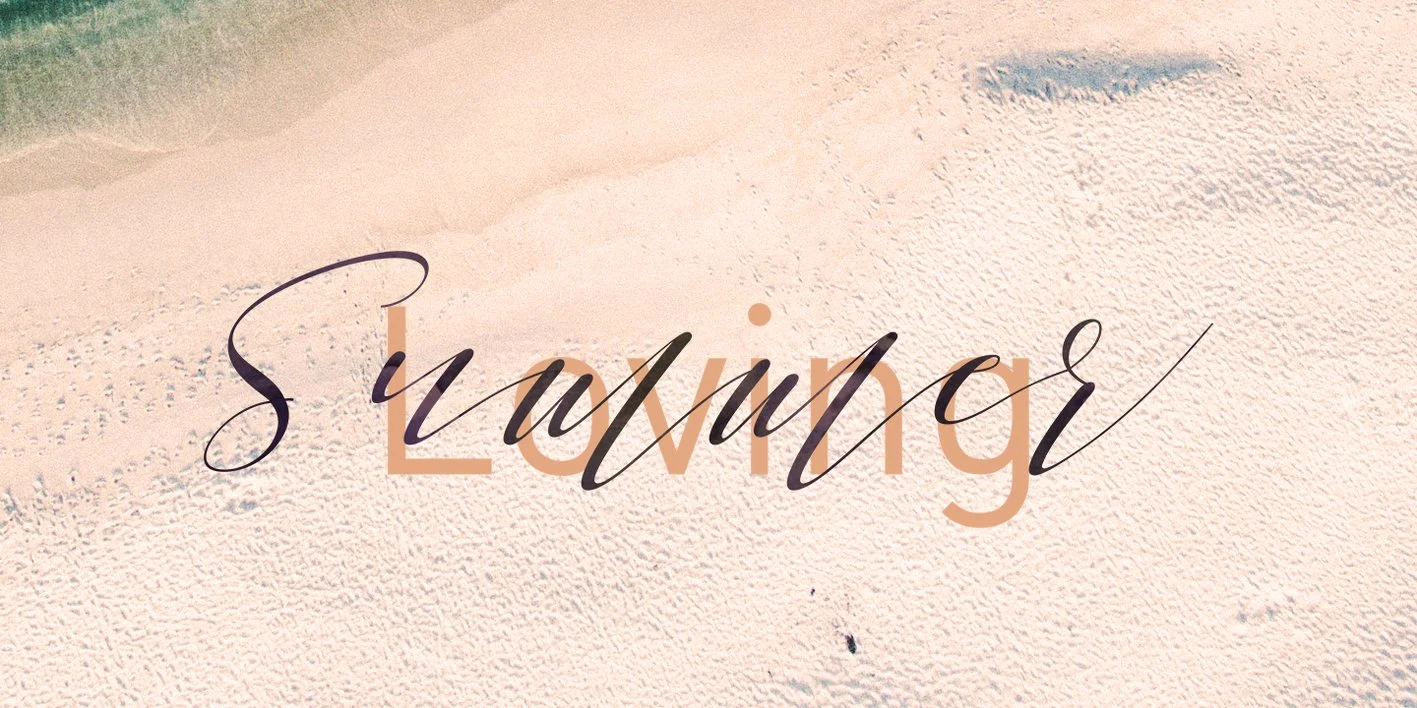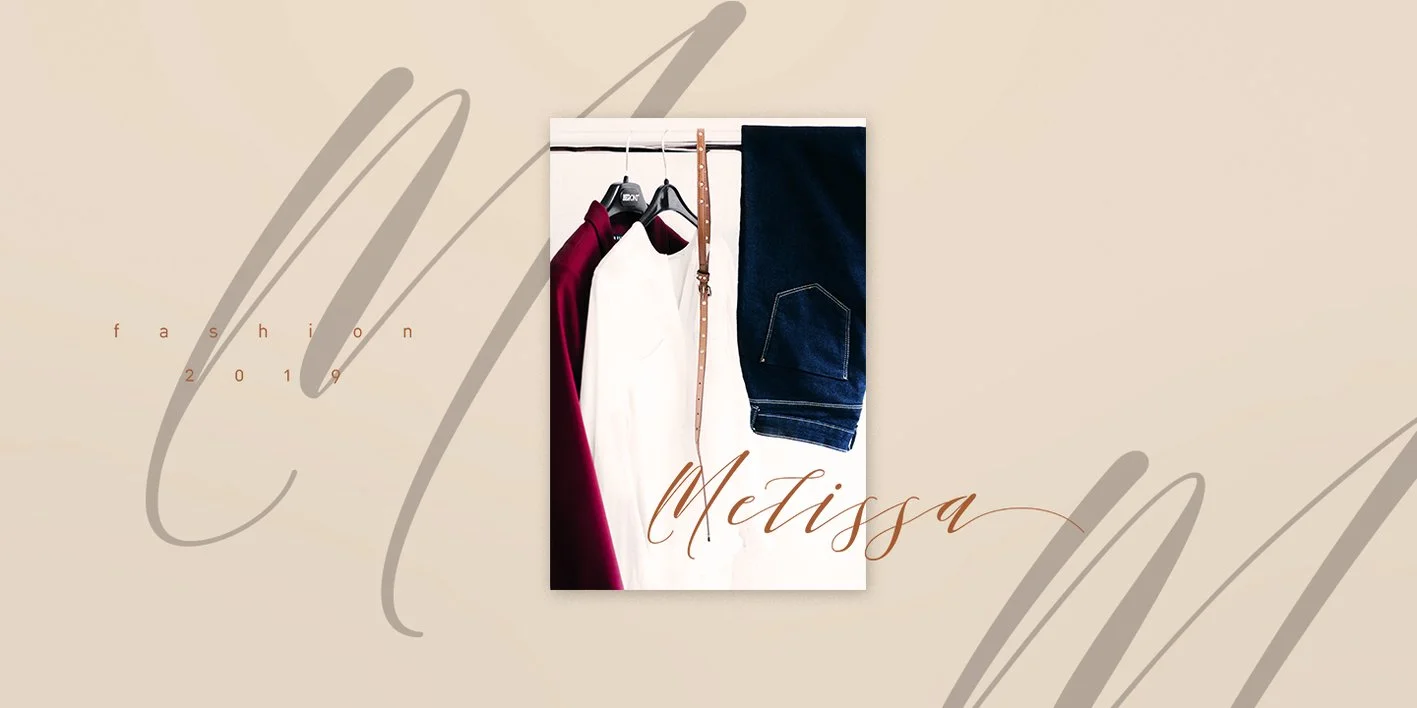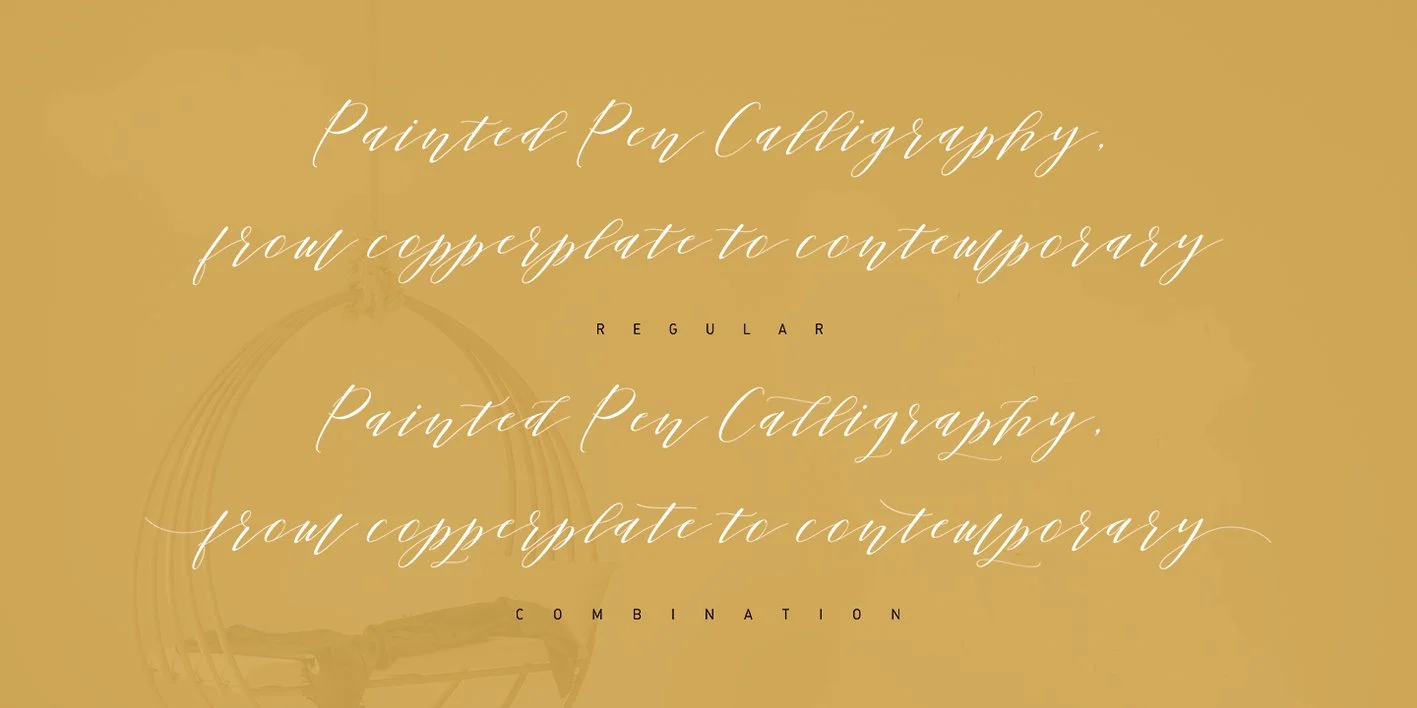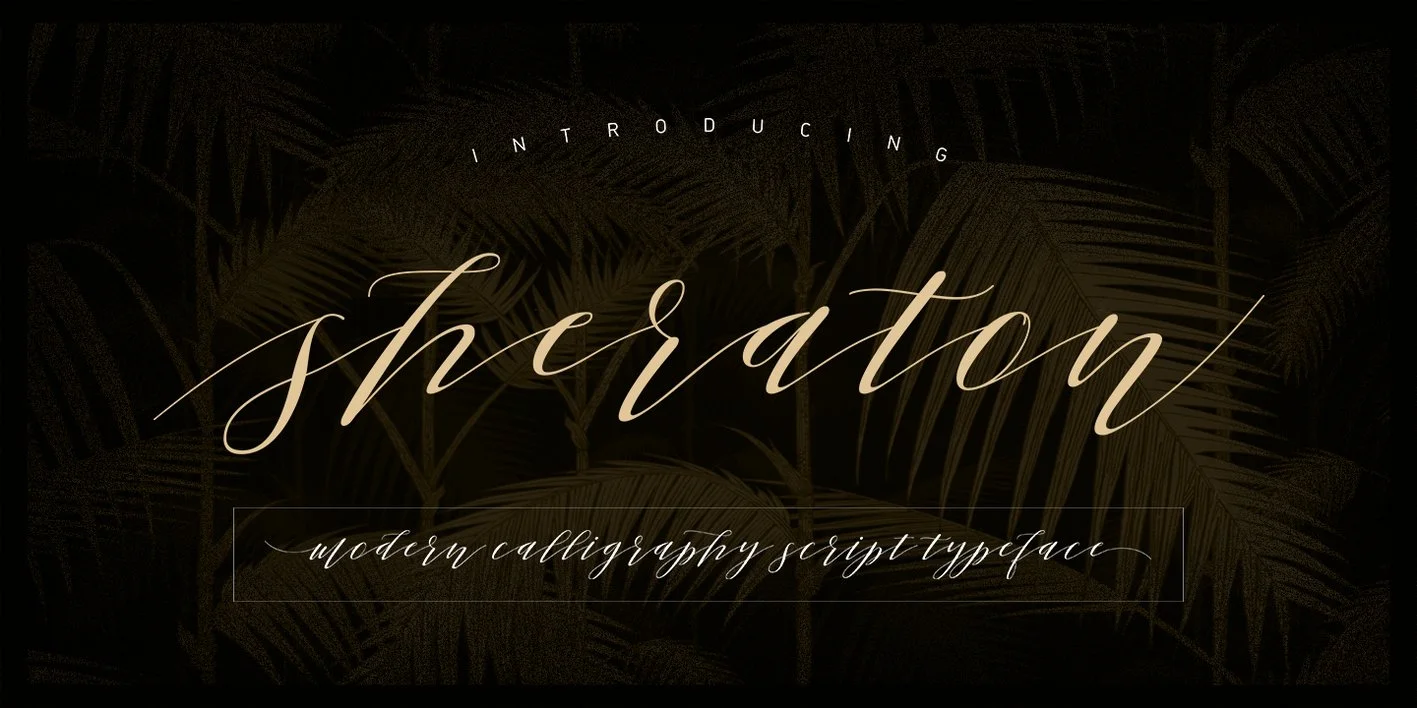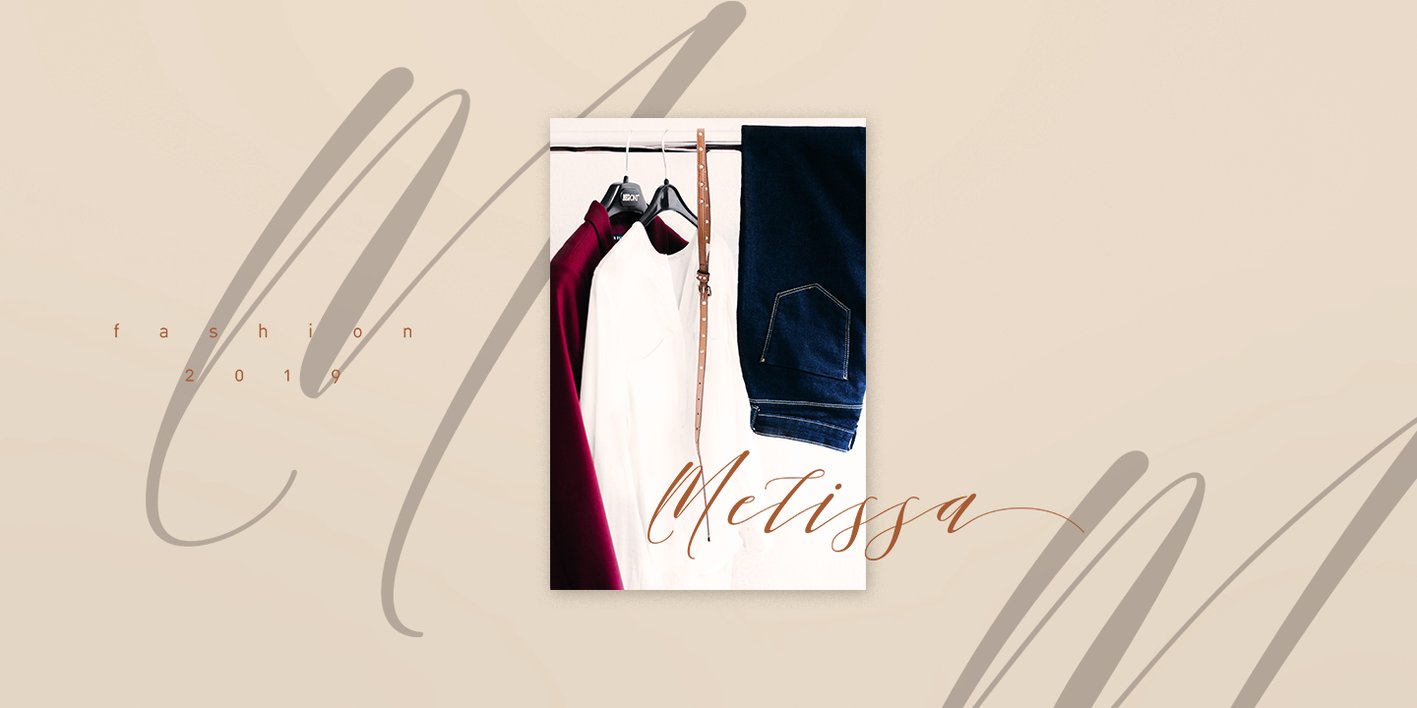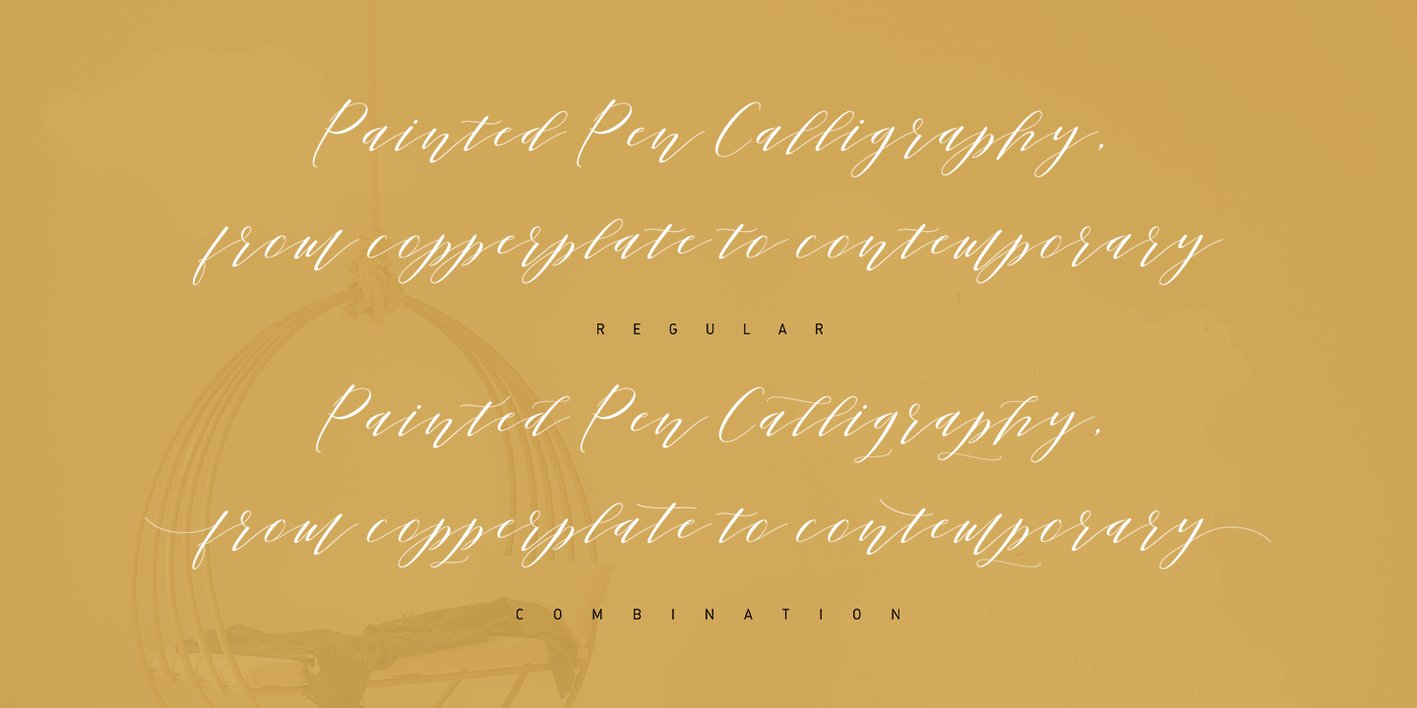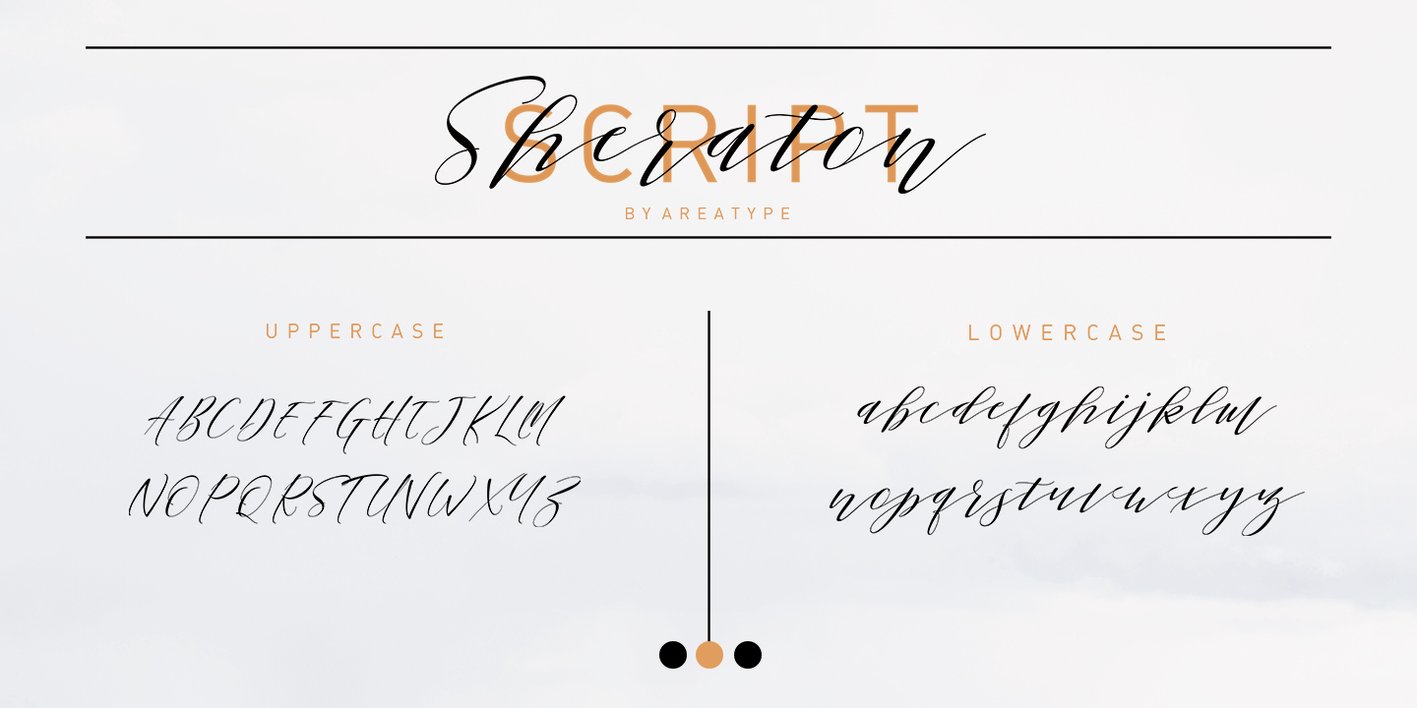
Sheraton Script Font
Sheraton Script Font is perfect for luxury hotel branding, upscale hospitality marketing, elegant wedding invitations, premium restaurant menus, high-end boutique signage, exclusive event stationery, sophisticated wine labels, luxury travel materials, five-star resort communications, elite club memberships, prestigious award certificates, and refined projects that require graceful, hospitality-inspired typography with luxury sophistication.
What makes Sheraton Script Font so exciting is its impeccable hospitality elegance and refined luxury that embodies the sophisticated service standards and gracious hospitality traditions of world-class hotels and premium establishments. This typeface features flowing script letterforms with elegant curves and refined flourishes that create an immediate sense of exclusivity, warmth, and personalized service. The font's hospitable character and luxury appeal make it perfect for brands and projects that want to communicate exceptional service, refined taste, and the kind of gracious hospitality that creates memorable experiences.
Sheraton Script Font typically comes in multiple weights and styles including Light, Regular, Medium, and Bold variations. Many versions also include elegant swashes, decorative ligatures, and hospitality-themed ornaments that enhance the font's luxury functionality and provide designers with comprehensive tools for creating sophisticated, service-oriented typography compositions that convey premium hospitality standards.
Create exceptional experiences with the gracious elegance of Sheraton Script Font. This distinguished typeface brings together hospitality tradition with luxury design sophistication, making it an essential tool for hospitality professionals and luxury brands that need to create memorable, service-oriented communications that resonate with discerning guests seeking exceptional experiences. The font's refined character ensures your hospitality communications will convey warmth and luxury excellence.
Whether you're designing luxury hospitality materials, premium service branding, or exclusive event communications, Sheraton Script Font delivers exceptional sophistication and hospitable elegance that connects with guests who expect the highest levels of service and attention to detail. Its graceful script nature works beautifully in personal communications and luxury applications where individual attention and refined taste must be clearly conveyed.
The exquisitely crafted letterforms of Sheraton Script Font showcase the finest traditions of hospitality typography with contemporary refinements that ensure optimal performance in luxury service environments. Each character has been designed to convey warmth, sophistication, and exceptional service standards while maintaining excellent readability, making it particularly valuable for premium hospitality communications where guest experience is paramount.